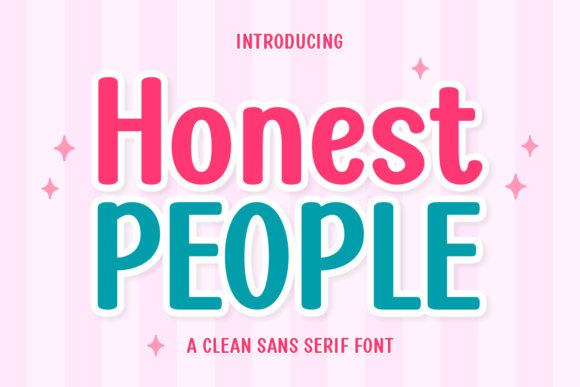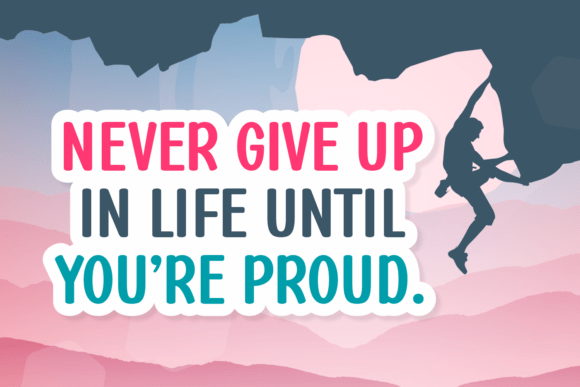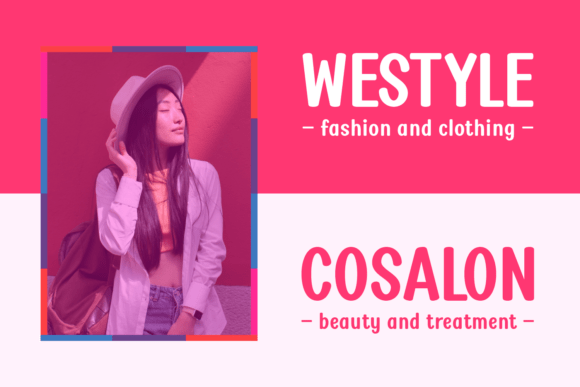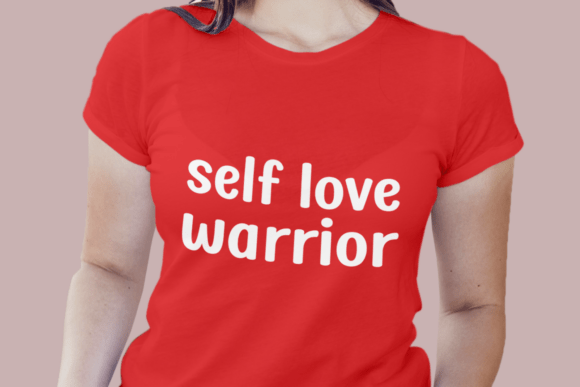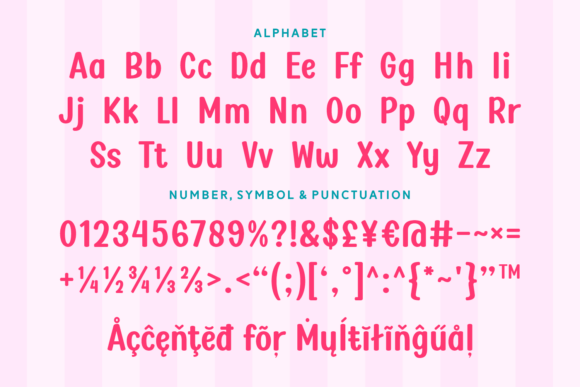
When Clean Meets Character: The Power of Honest People Font
Remember that moment when you stumbled upon the perfect font for your project? It’s like a spark of creativity ignites, and everything falls into place. For designers, finding the right font can be a game-changer. That’s why we’re excited to introduce you to Honest People Font, a clean sans-serif font that masterfully blends minimalism with a warm, human touch.
This elegant font features a tall x-height and subtly softened corners, making it incredibly legible while still exuding a sense of approachability. As a versatile workhorse, Honest People Font provides a clean foundation for designers to build upon, adding just the right amount of personality to their projects. Whether you’re working on app interfaces, blog headers, or friendly corporate branding, this font is sure to elevate your visual identity.
- Unique Characteristics: Hand-drawn design with a friendly, approachable feel and a wide range of language support
Honest People Font Review
I’ve had the chance to work with the “Honest People Font” and I must say it’s a mixed bag. On the one hand, here are some things that really work well: ✨
- Unique character set: The font has a distinct, quirky feel that can add a lot of personality to a design.
- Good for body text: The font is legible at various sizes and makes for a great choice for large blocks of text.
- Customizable: The font includes a range of weights and styles, making it easy to find the right fit for your project.
However, there are also some limitations to consider: ⚠️
- Limited use in headers: While the font is great for body text, it can look a bit awkward in larger, more prominent headers.
- Not ideal for logos: The font’s unique character set can be a bit too quirky for a logo, which should be simple and easily recognizable.
- May not work well with certain color schemes: The font’s design can clash with certain color combinations, making it harder to get the look just right.
Overall, I’d say the “Honest People Font” is a solid choice for designers who want to add some personality to their projects. Just be mindful of its limitations and use it wisely.
To get the most out of the Honest People font, use it for headings and titles to add a touch of sophistication and elegance to your designs. It’s also great for creating a consistent brand identity across all your marketing materials.
The Honest People font is ideal for use in:
– Headings and titles
– Marketing materials such as brochures and flyers
– Website design and development
Alternatives to Honest People Font
1. Merriweather
Merriweather is a classic serif font, ideal for body text and long-form content. It has a traditional and elegant feel, making it suitable for publications, books, and websites with a formal tone. Compared to Honest People Font, Merriweather has a more formal and sophisticated look, while Honest People Font has a friendly and approachable feel.
Lato is a sans-serif font that works well for titles, headings, and short paragraphs. It has a modern and clean design, making it perfect for websites, apps, and digital products. In comparison to Honest People Font, Lato has a more minimalist and edgy feel, while Honest People Font has a warm and inviting look.
Open Sans is a sans-serif font that is highly readable and versatile. It’s suitable for body text, titles, and headings, and works well in a variety of contexts, from digital products to publications. Compared to Honest People Font, Open Sans has a more neutral and approachable feel, while Honest People Font has a more personal and emotive look.
4. Playfair Display
Playfair Display is a luxurious serif font, ideal for titles, headings, and short paragraphs. It has a high-end and elegant feel, making it suitable for high-end brands, luxury products, and special occasions. In comparison to Honest People Font, Playfair Display has a more opulent and sophisticated look, while Honest People Font has a more down-to-earth and relatable feel.